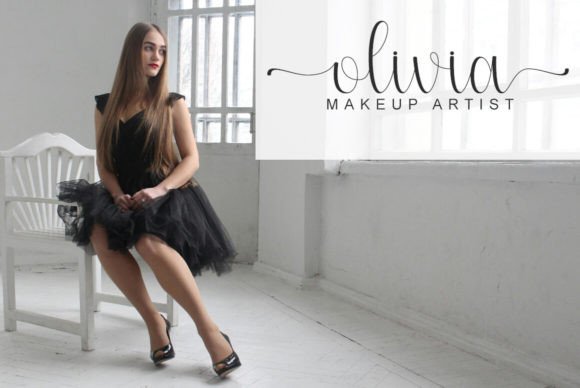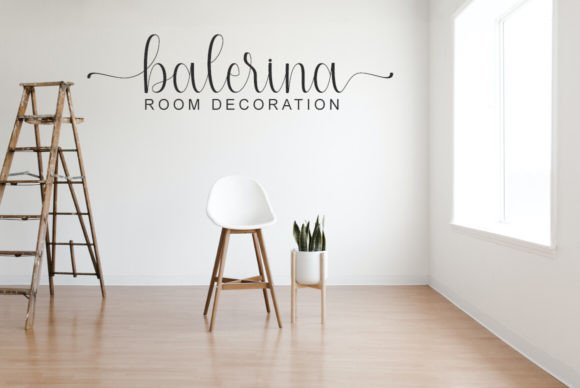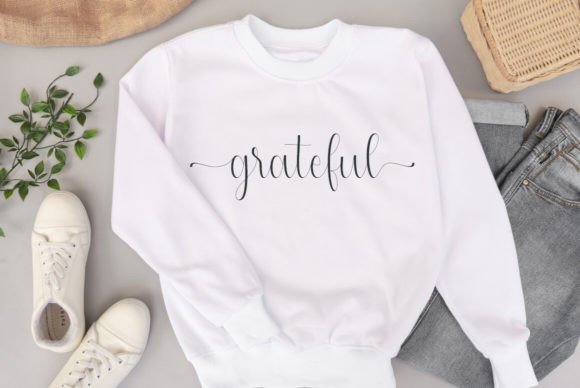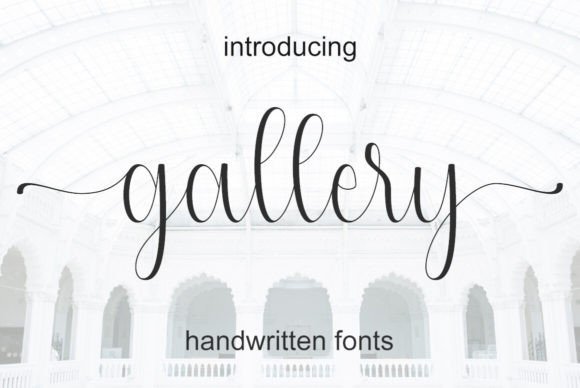
Introduction to Gallery Font
Welcome to the world of β€˜Gallery’, an embodiment of refined elegance interpreted in handwritten style.
Imagine the delicate whisper of emotions on a wedding invite, the affectionate charm of a thank you note, the personal touch in a greeting card, or the profound weight of a thoughtfully curated quote – Gallery seamlessly instills an extra layer of delicacy to them all Envision its utility in a sports & professional setup – logos, business cards or signage – Gallery doesn’t just support text, it imparts personality, creating attention-grabbing communication.
Key Features of Gallery Font